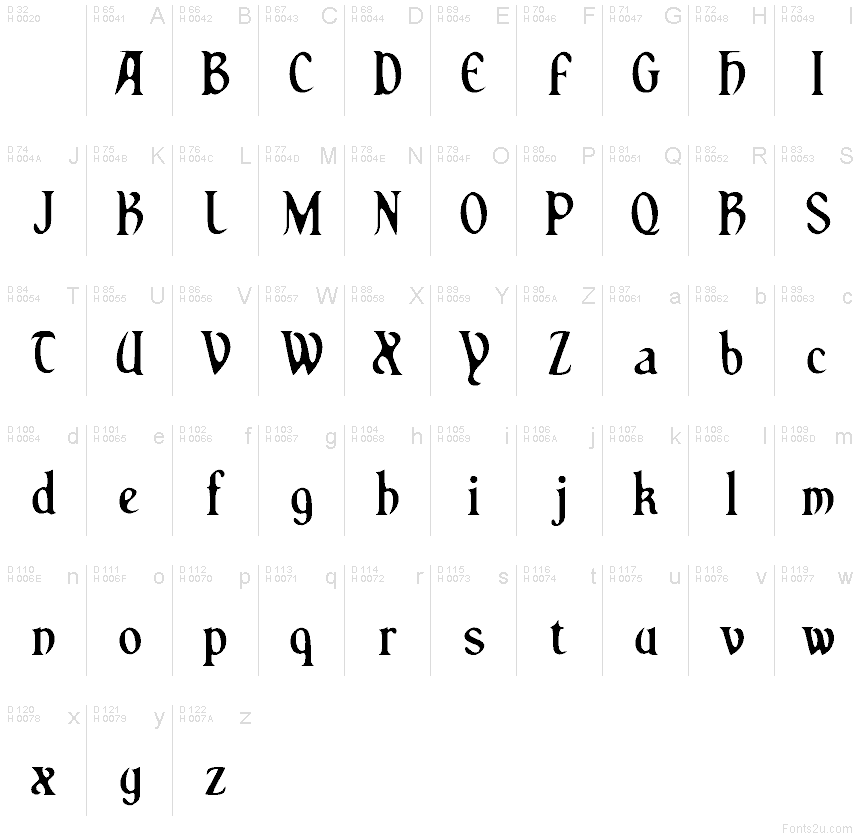
CSGrimoreDrawn-Regular Demo
CS Grimore Drawn font is a condensed vintage serif brought to you by Craft Supply Co. It has a formal appearance with dominant gothic-inspired ornamental details crafted in an elegant style. Its medieval influences give off a historical touch making the typeface fit numerous design setups. Overall, this stylish serif brings visually pleasant beauty using its unique hand-drawn characters.